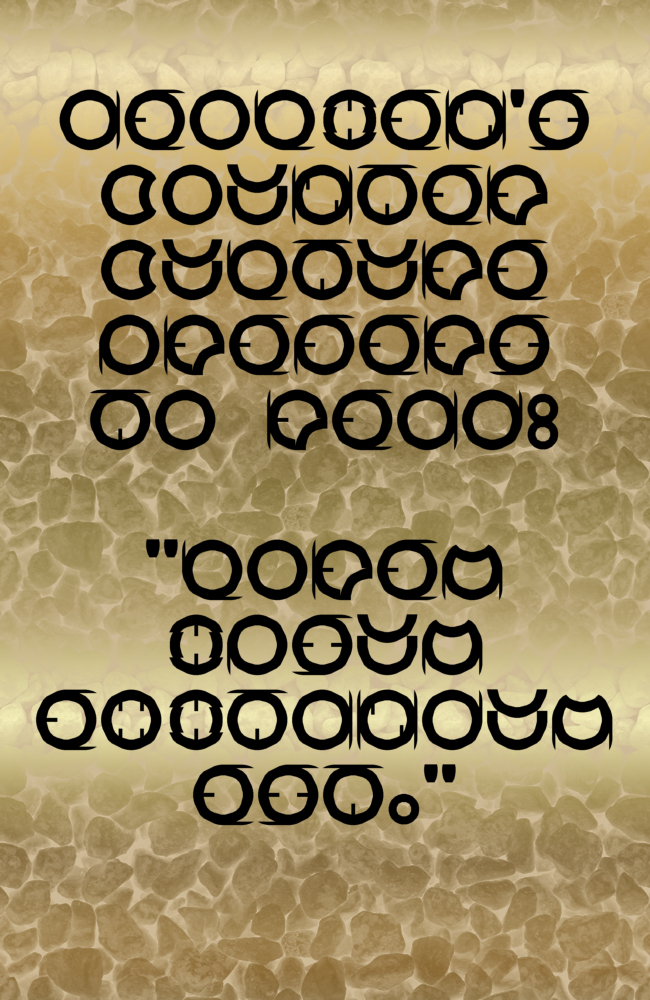
The main feature is the counter. Mostly it has bricks attached but sometimes it wanted to change shape ;) Punctuation marks and symbols have quite a few less or more bricks than the initial "O" counter that inspired this design.
Spot the sampler's spelling error ........................... ;) I'm still adding the occasional glyph, -I've just made the @ and &- font will be downloadable soon.
@ jonrgrover: you're right, approaching the glyphs creates a line appearing like a graphic image rather than text. I find that change of character intriguing. Thank you for giving me an idea :)
Added "MoreLatin" letters.I broke my design rules for the ß but based it on the"3". Thankfully the new ß doesn't look out of place and the bricks I removed aren't missing in a disturbing way.
The main feature is the counter. Mostly it has bricks attached but sometimes it wanted to change shape ;) Punctuation marks and symbols have quite a few less or more bricks than the initial "O" counter that inspired this design.
When you slide the letters into each other so that they intersect, using the 'Adjust letterspacing', you get an interesting effect.
Spot the sampler's spelling error ........................... ;) I'm still adding the occasional glyph, -I've just made the @ and &- font will be downloadable soon.
@ jonrgrover: you're right, approaching the glyphs creates a line appearing like a graphic image rather than text. I find that change of character intriguing. Thank you for giving me an idea :)
Added "MoreLatin" letters.I broke my design rules for the ß but based it on the"3". Thankfully the new ß doesn't look out of place and the bricks I removed aren't missing in a disturbing way.